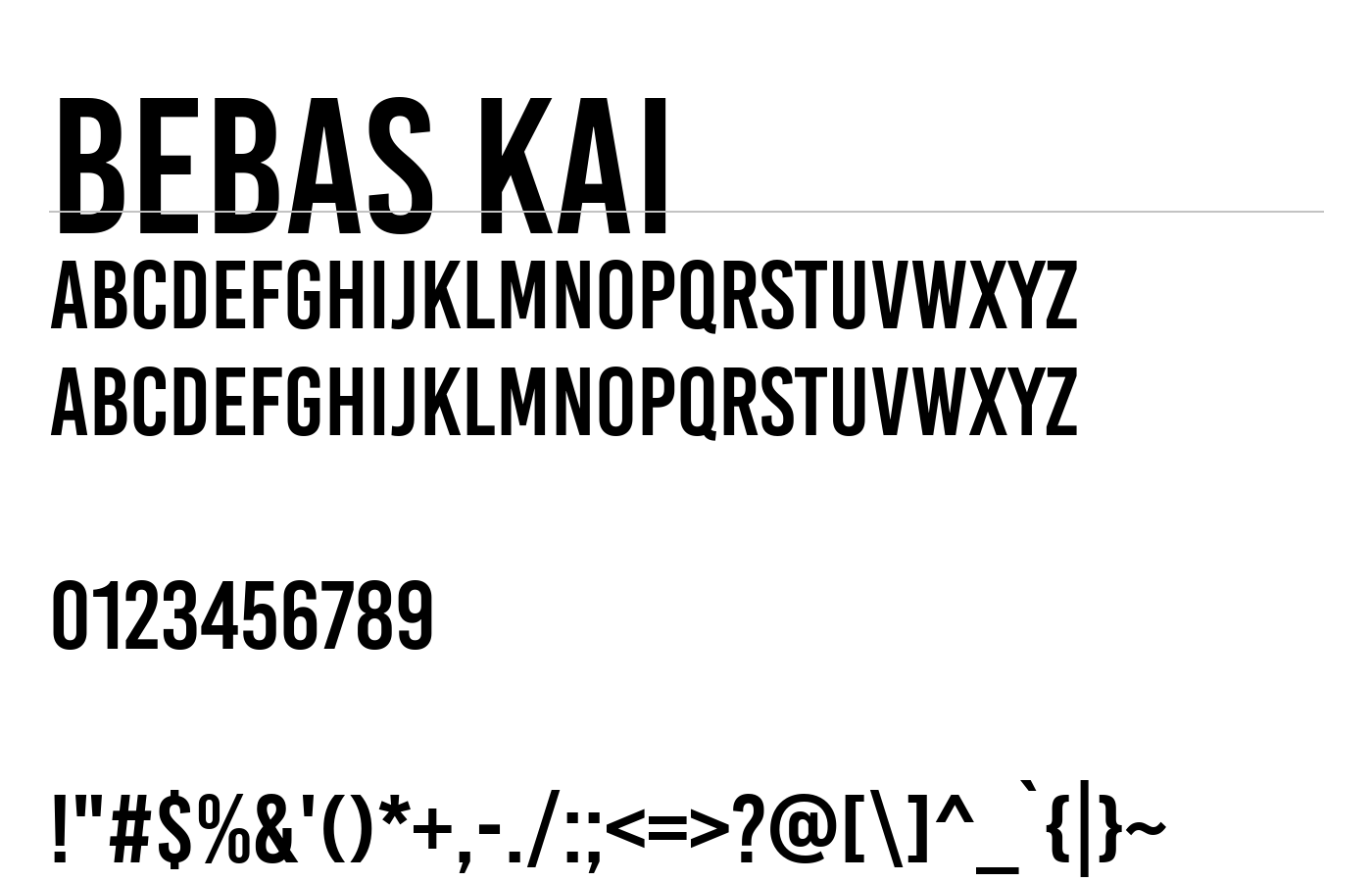
Bebas Kai is a bold, condensed sans serif font characterized by its tall, narrow letterforms and uniform stroke weight, giving it a clean and modern appearance. Its all-uppercase style with minimal contrast makes it highly legible and striking, perfect for impactful headlines, branding, and display use where a sleek, confident tone is desired. This font works well in designs that need a strong visual presence without sacrificing clarity.
Bebas Kai Font
About Bebas Kai Font
| Font family | Bebas Kai Font |
| Designer | Ryoichi Tsunekawa |